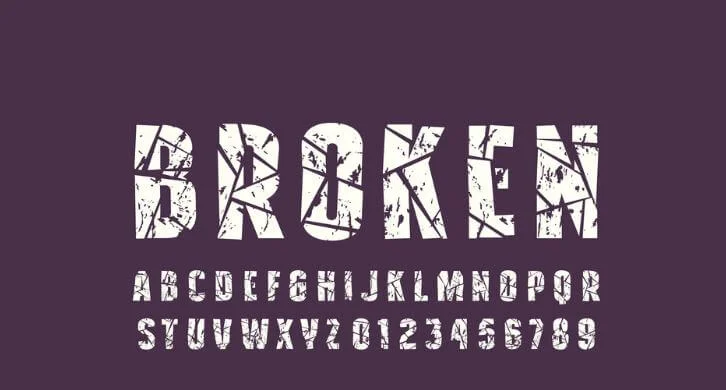
About Broken Font
Broken Font is an intensely distressed typeface that captures the raw energy of urban decay and post-apocalyptic aesthetics. Each character appears cracked, shattered, and weathered as if recovered from a ruined landscape. This font pushes the boundaries of typographic destruction while maintaining surprising legibility.
Created through a combination of digital manipulation and hand-drawn elements, Broken Font features irregular edges, deep cracks, and fragmented letterforms that create a sense of urgency and chaos. The deliberate imperfections and rough textures make every character unique, ensuring no two letters are exactly alike.
Design Characteristics
- Heavily distressed and cracked letterforms
- Irregular edges and fragmented shapes
- Urban decay and grunge aesthetic
- High-contrast stroke variations
- Multiple crack patterns and textures
- Optimized for display sizes and impact
Texture Details
- Deep fracture lines throughout characters
- Rough, uneven stroke terminals
- Missing pieces and chip effects
- Weathering and erosion simulation
- Ink bleed and spray paint textures
- Concrete and wall-like surface details
Best Uses
- Horror movie titles and promotional materials
- Urban streetwear branding and graphics
- Heavy metal and punk rock album covers
- Video game interfaces with post-apocalyptic themes
- Grunge and alternative web designs
- Poster designs for edgy events and concerts
- Comic book and graphic novel titles
- Destruction and chaos-themed projects